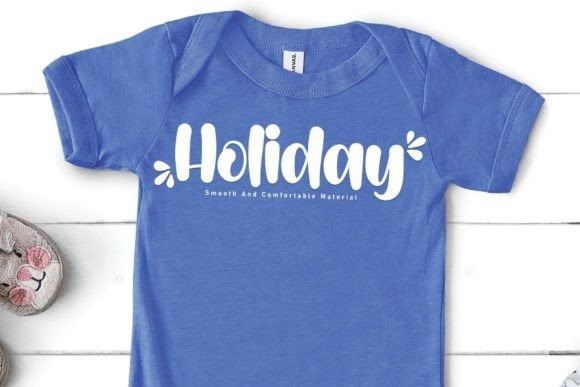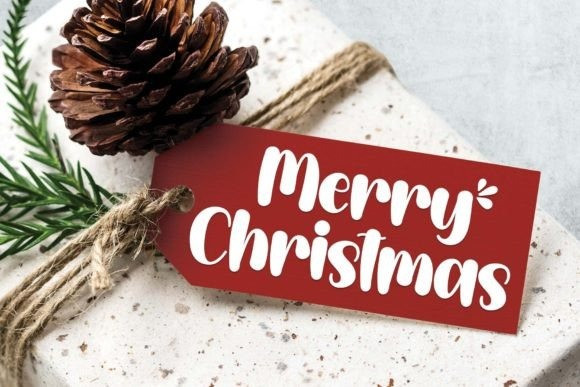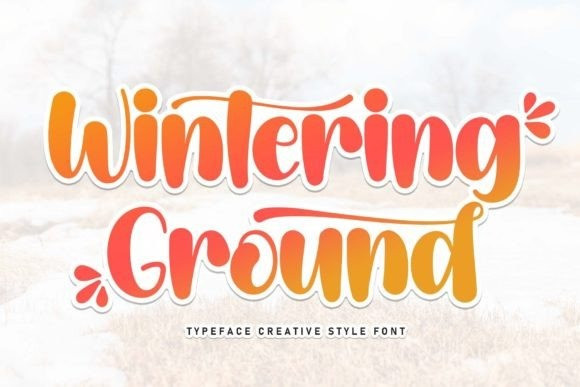
Wintering Ground Font
Wintering Ground Font is a sweet and cursive handwritten font. This gentle font will look gorgeous on a variety of design ideas. It will add a joyful and romantic touch to each of your projects!